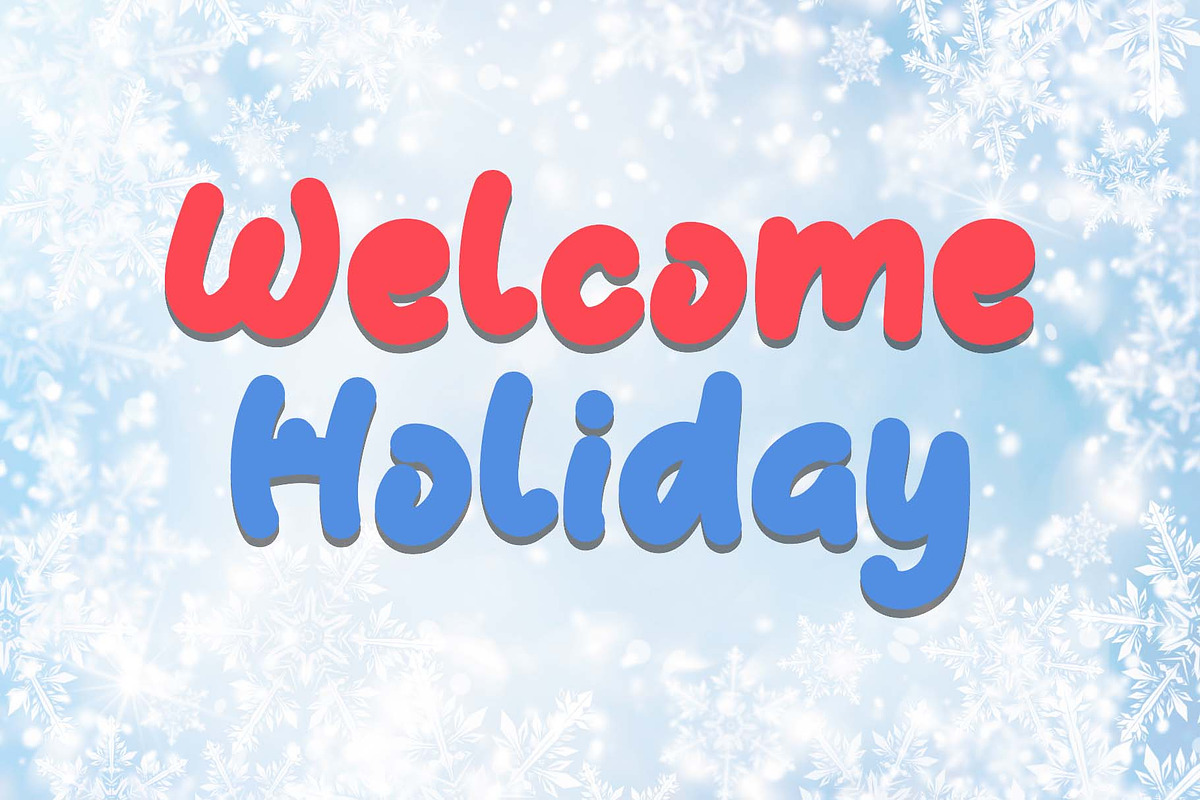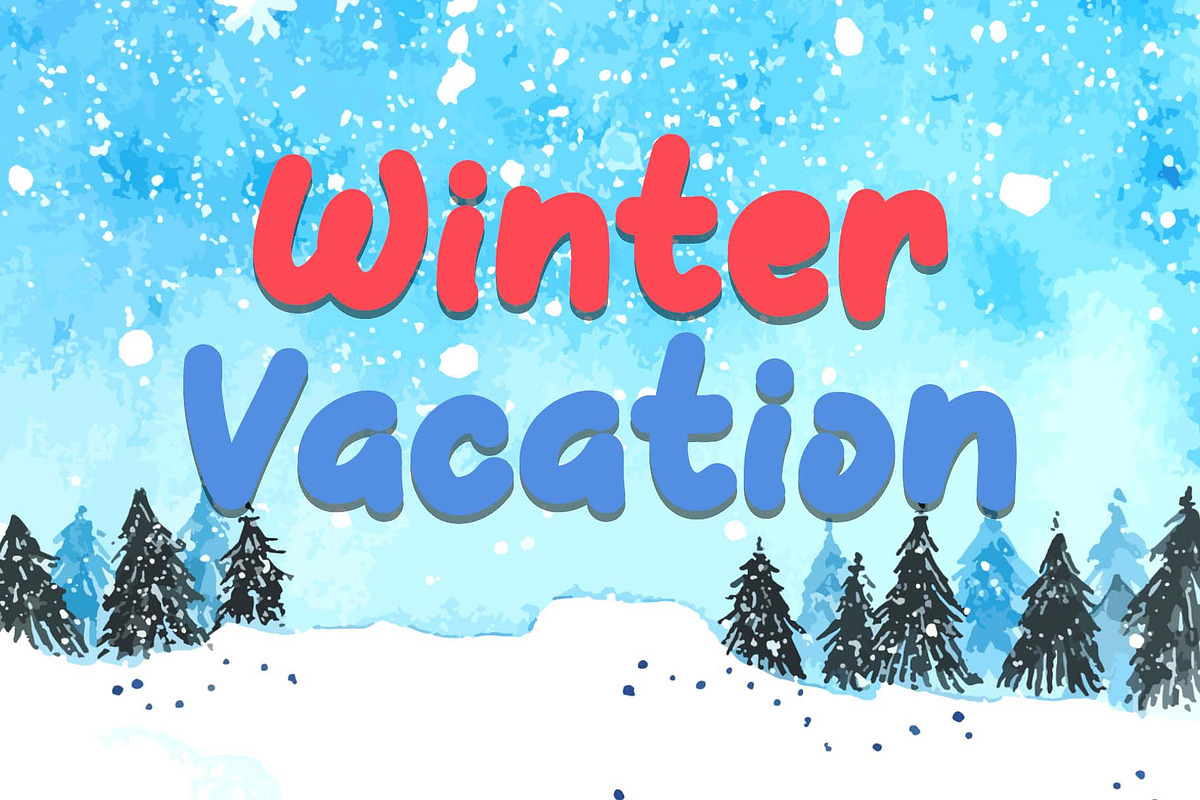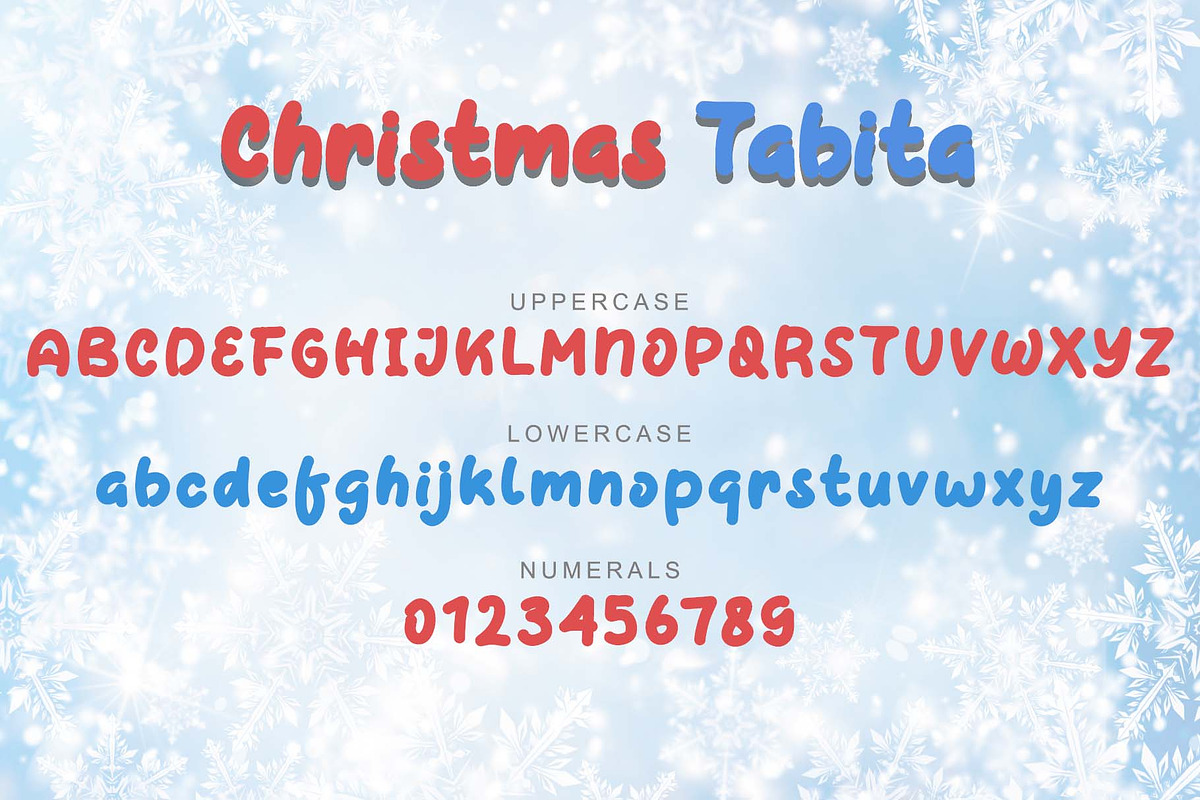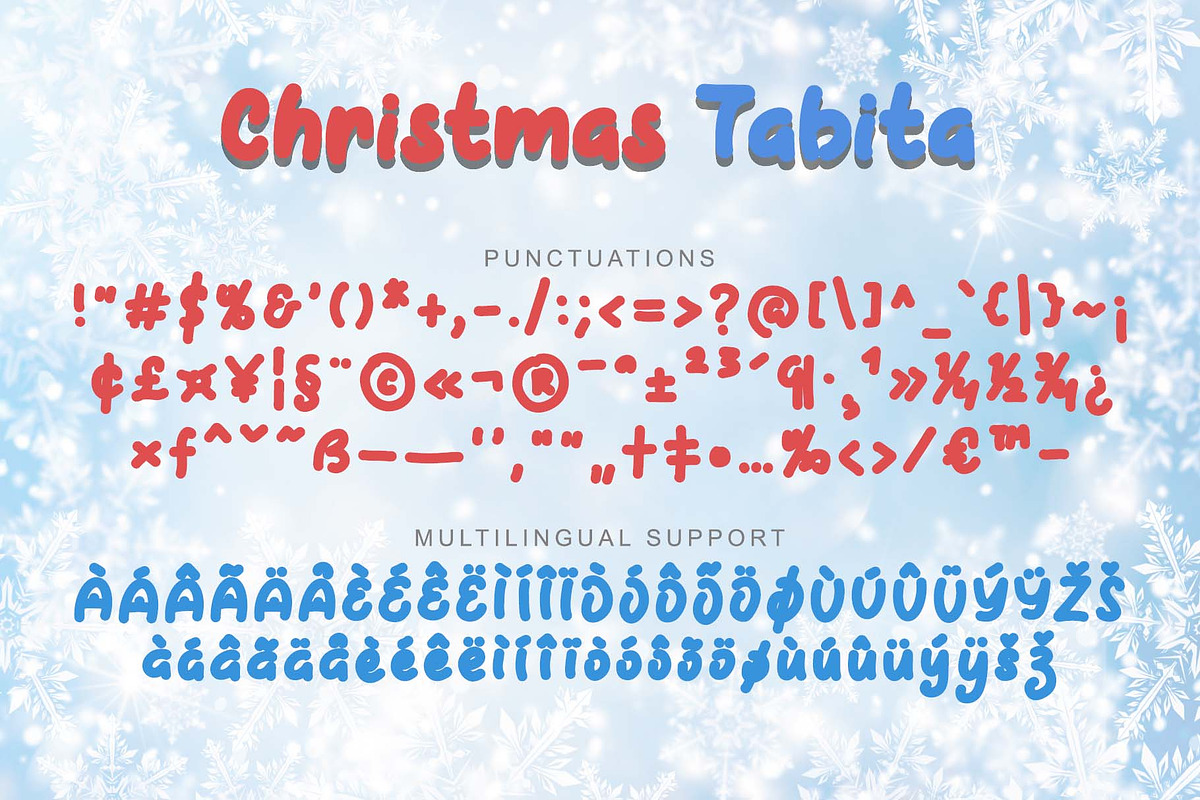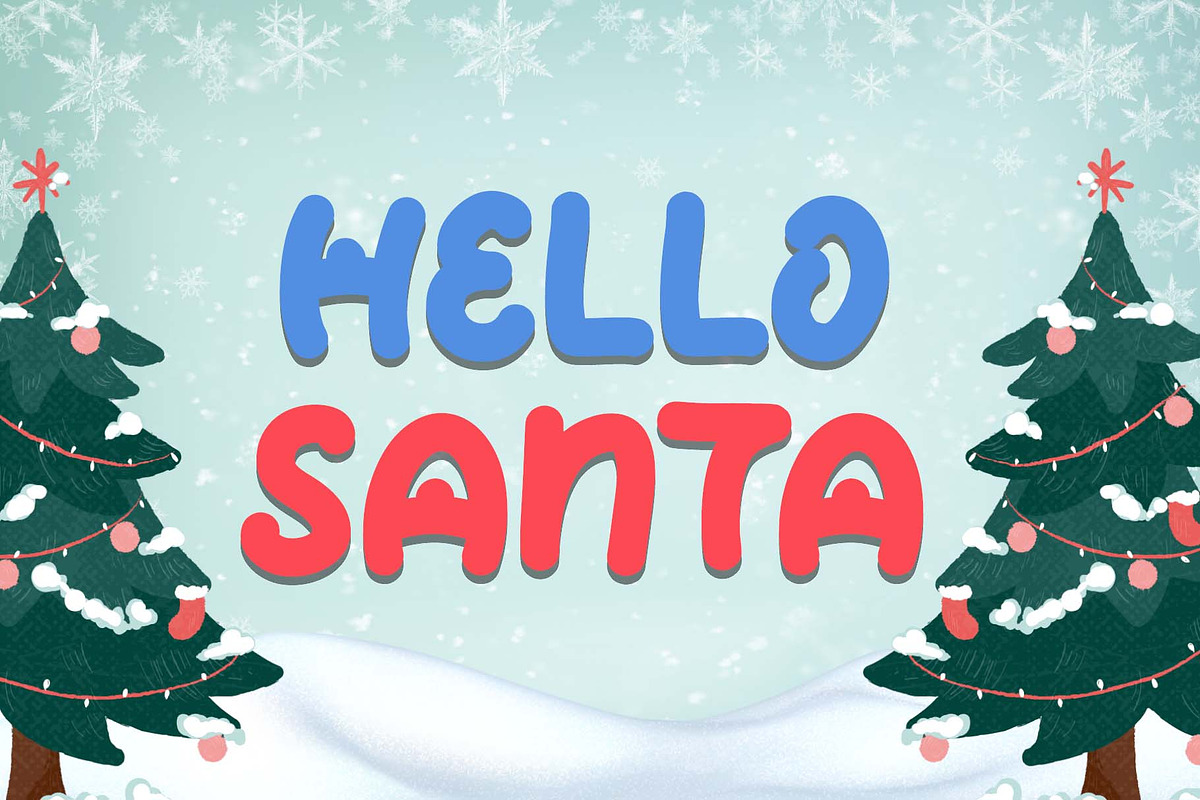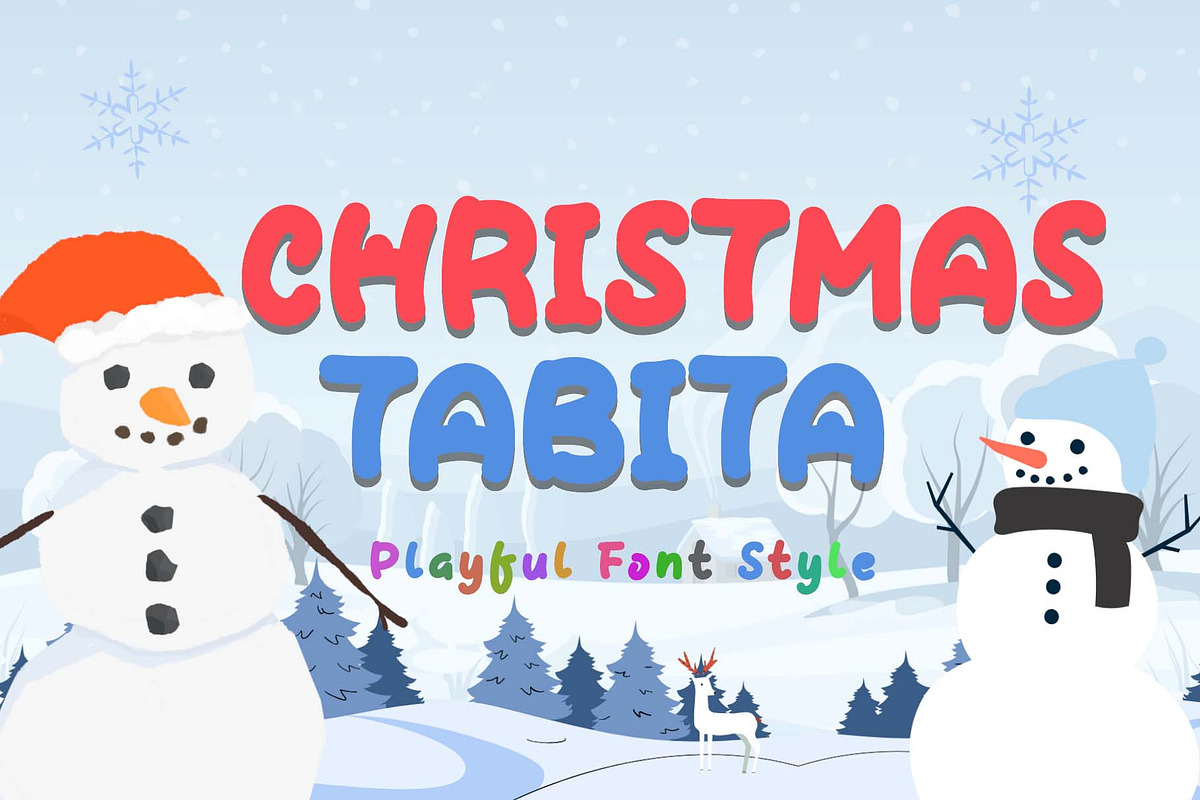
Christmas Tabita
"Christmas Tabita" is a cute and unique display font. It features uppercase and lowercase letters, numerals, punctuations, and multilingual support. It's perfect for Christmas, banners, posters, print, branding, stickers, Thanksgiving, spring, winter, holidays, movie titles, book titles, magazines, YouTube, social media, gifts, Easter, summer, teaching, education, and more.